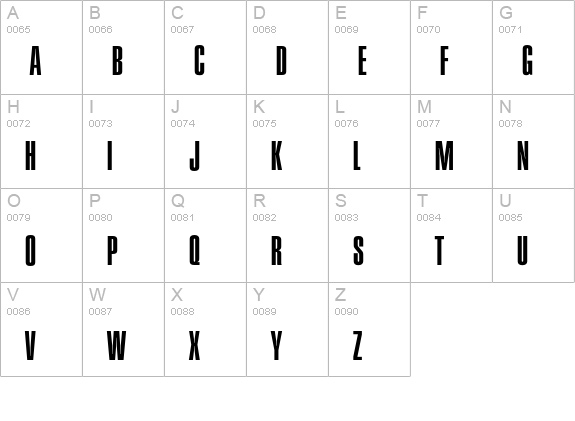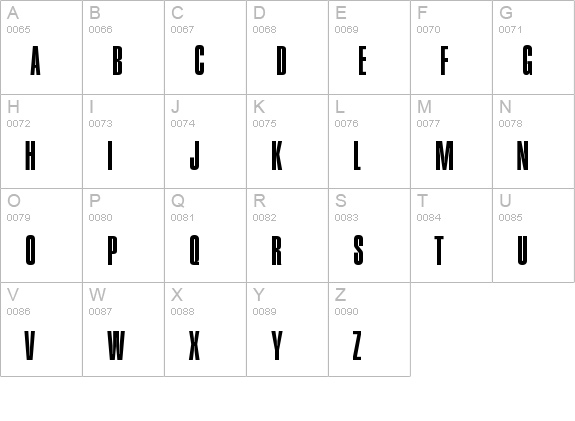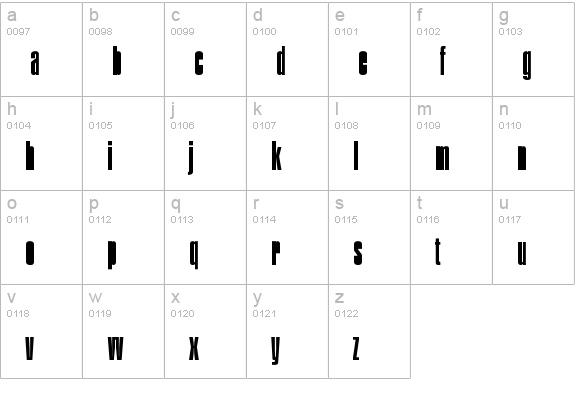
Plakette-Medium is a balanced, medium-weight variant in the Plakette typeface family \xE2\x80\x94 well suited to sub-headlines, navigation, and balanced editorial work.
Plakette-Medium font is a captivating typeface that effortlessly blends modernity with a touch of vintage charm. Its clean geometric lines and sturdy letterforms make it a versatile choice for various design projects. With its medium weight, Plakette-Medium strikes the perfect balance between boldness and elegance, making it ideal for headlines, logos, branding materials, and more. Its unique character sets it apart, giving your designs a distinct personality that will captivate any audience. One of the most appealing aspects of Plakette-Medium font is that it is freely available to download at FontsMarket.com. This means that you have the opportunity to enhance your creative work without any cost. Whether you are a professional designer or an aspiring artist, this free font provides you with unlimited possibilities to explore and experiment with your designs. The versatility of Plakette-Medium font extends beyond its aesthetic appeal. Its legibility ensures that your message is conveyed clearly and effectively, even in small sizes or challenging design contexts. Its timeless design also guarantees that your creations will remain relevant and visually stunning for years to come. Plakette-Medium font is a must-have addition to your font library. Its classic yet contemporary style, combined with its availability as a free download, makes it a valuable resource for any designer seeking to create impactful and captivating designs. Embrace this font and unlock a world of creative possibilities!